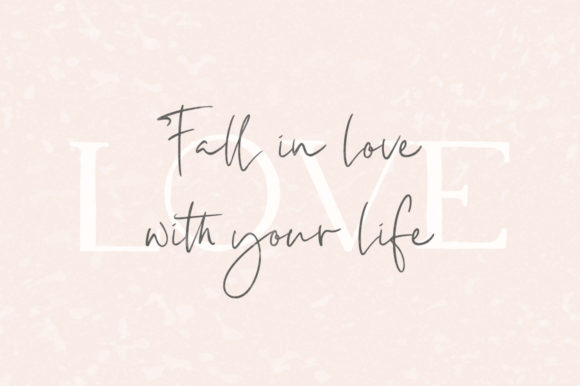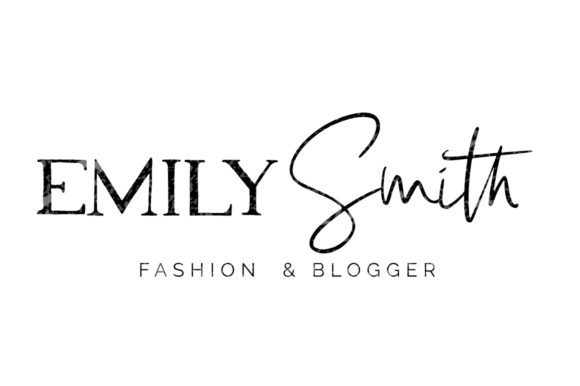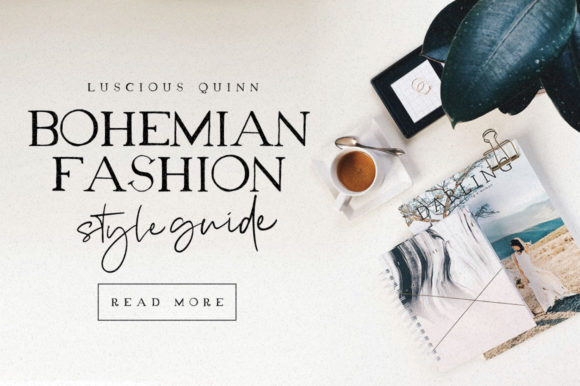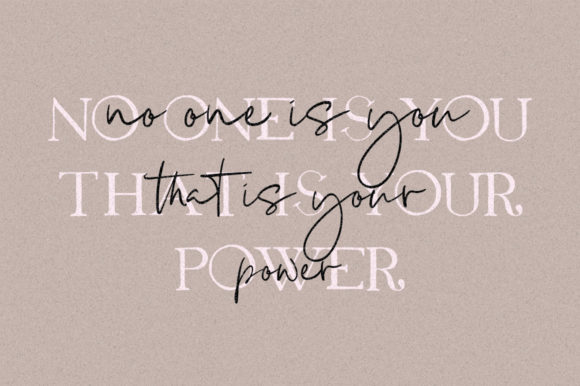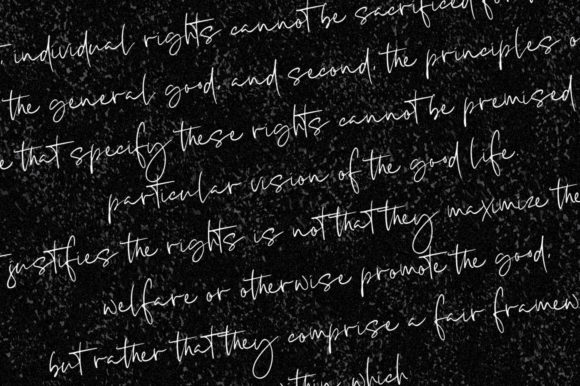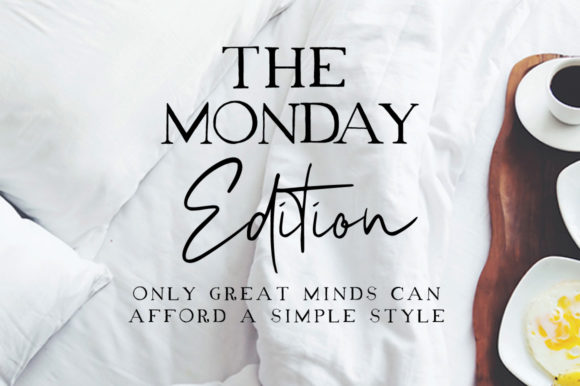
Introduction to Luscious Quinn Duo Font Font
Fonts play a crucial role in design, and the Luscious Quinn Duo Font font is a typeface that brings both character and versatility to any project. Whether you’re working on a branding project, a website, or a print design, the Luscious Quinn Duo Font font offers a unique style that can elevate your work.
The Luscious Quinn is a luxurious font duo.
This contemporary pair of script and serif fonts includes a stylish, all-caps, hand lettered serif and an elegant and beautiful script It offers you a beautiful harmony for a diversity of design projects, including logos & branding, wedding designs, social media posts, advertisements & product designs.
Key Features of Luscious Quinn Duo Font Font
Why Choose Luscious Quinn Duo Font Font?
The Luscious Quinn Duo Font font is more than just a typeface – it’s a design tool that helps you communicate your message with style and clarity. Its unique character set and versatile design make it suitable for a wide range of applications, from elegant invitations to bold headlines.
With its carefully crafted letterforms and balanced proportions, the Luscious Quinn Duo Font font ensures readability and visual appeal across all mediums.
What makes Luscious Quinn Duo Font font special?
The Luscious Quinn Duo Font font stands out with its unique design, exceptional readability, and versatility across various design applications.